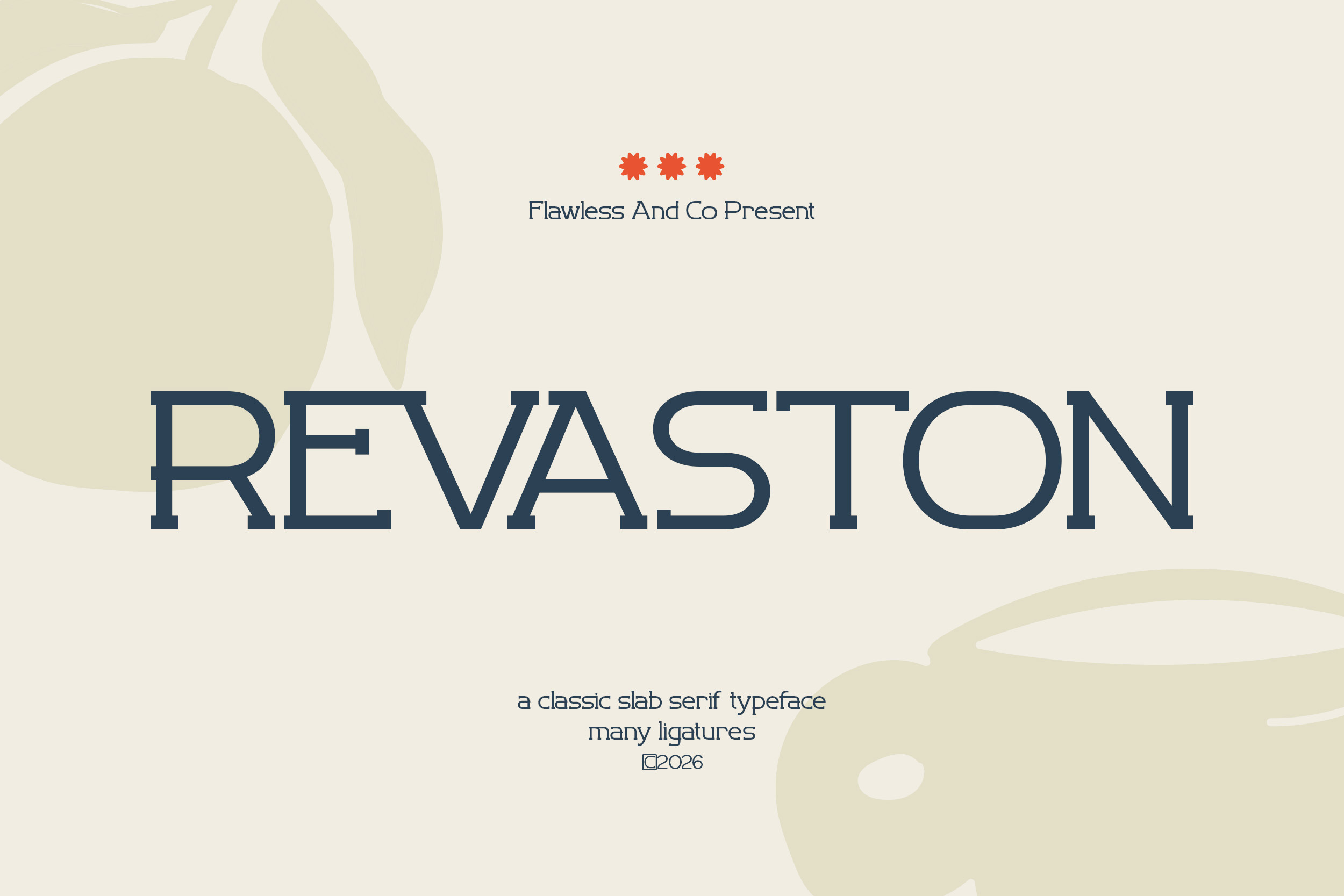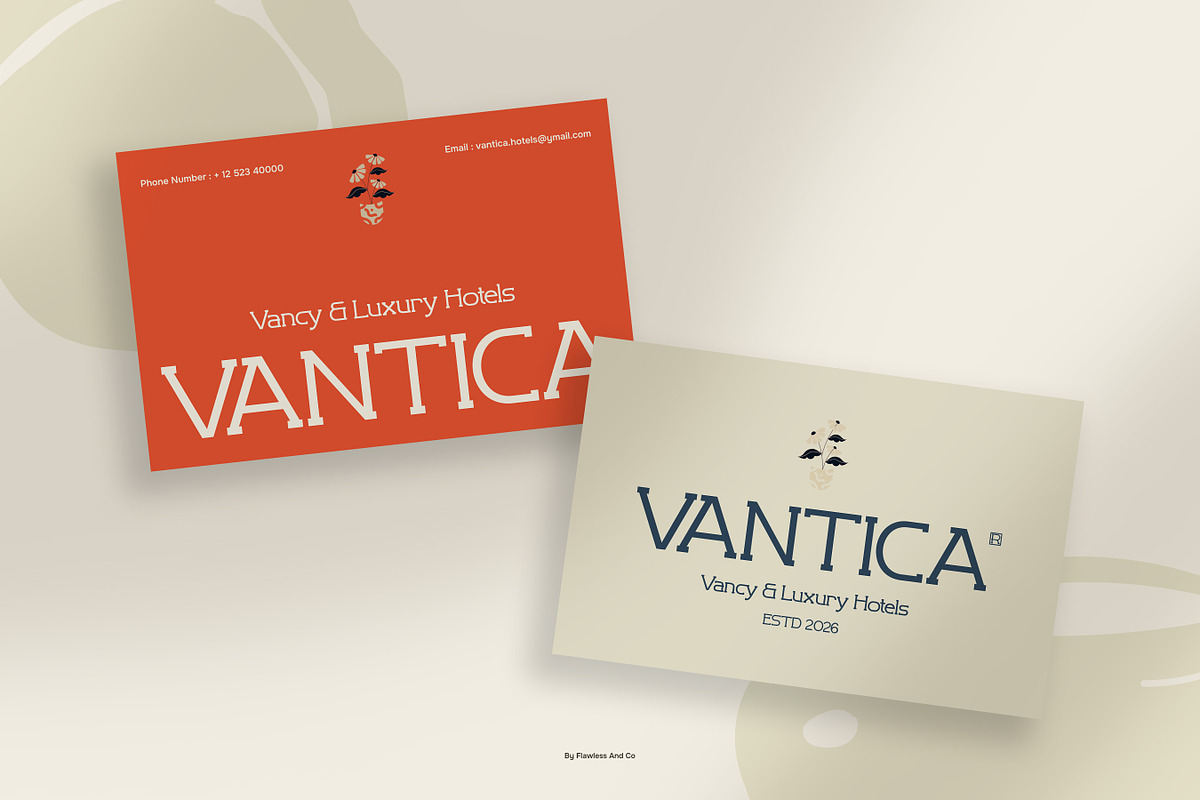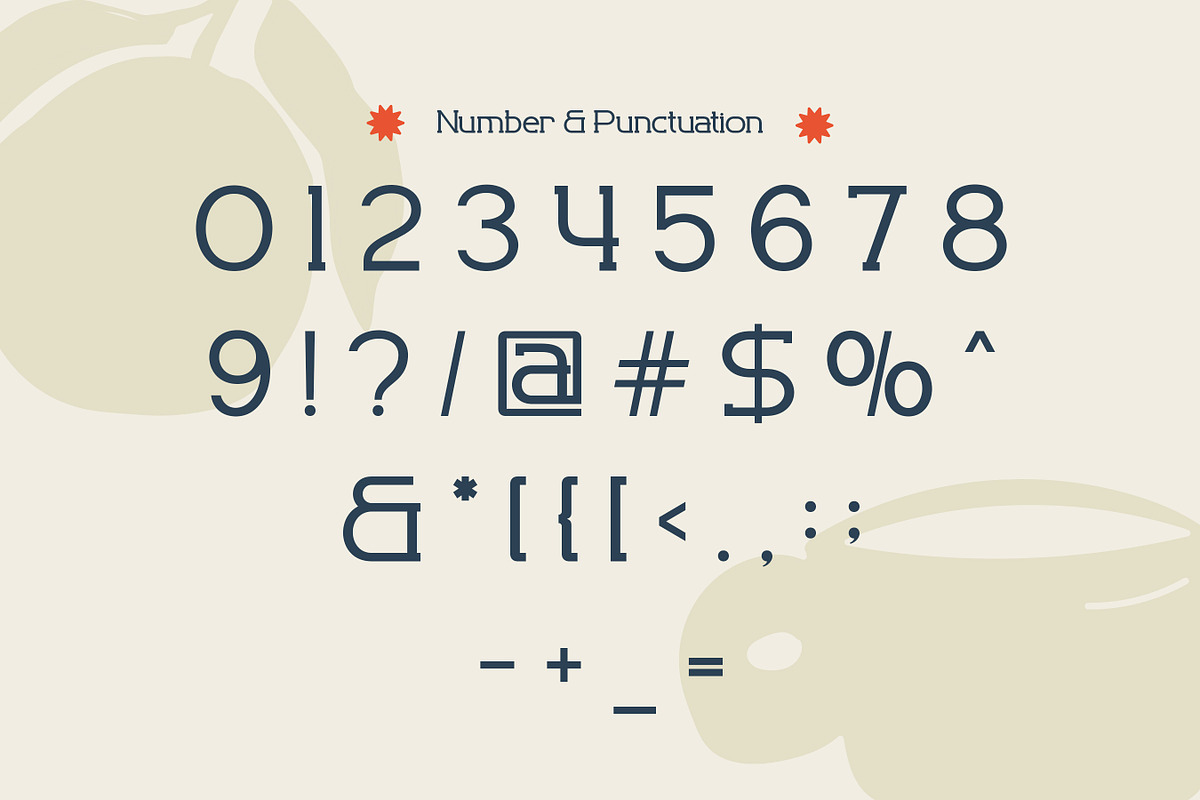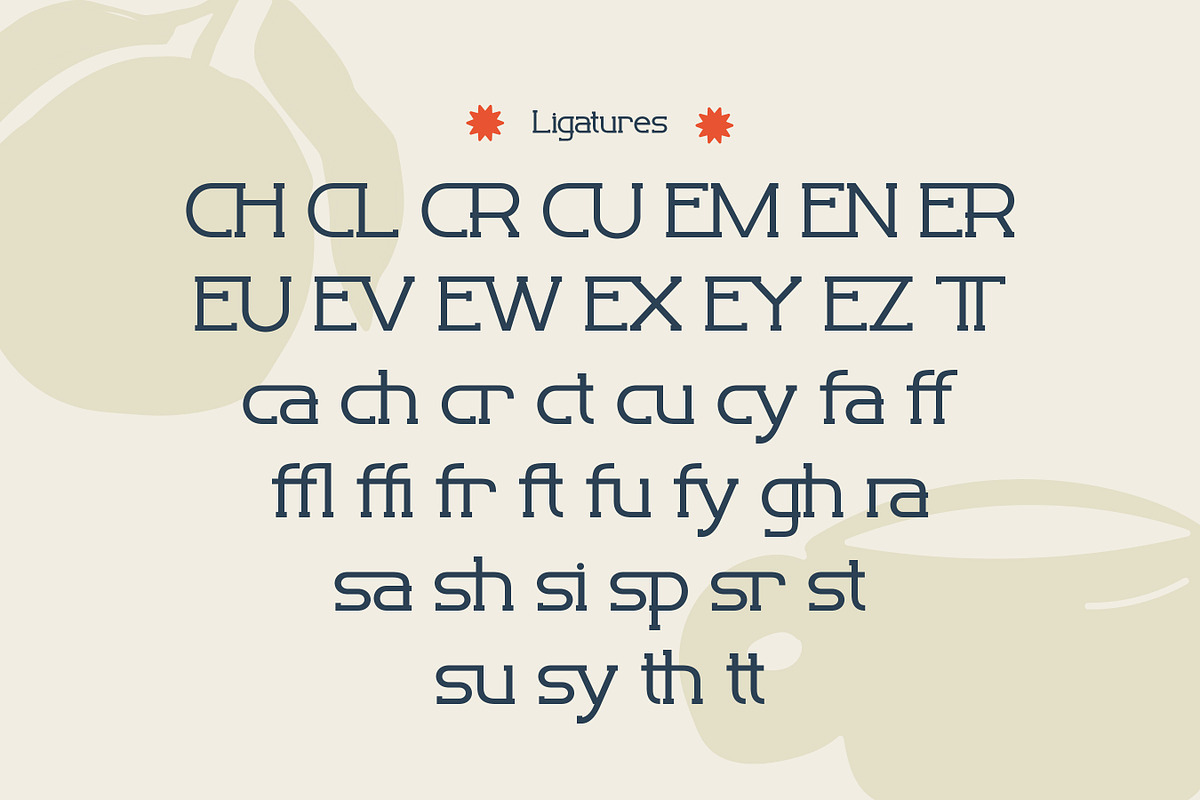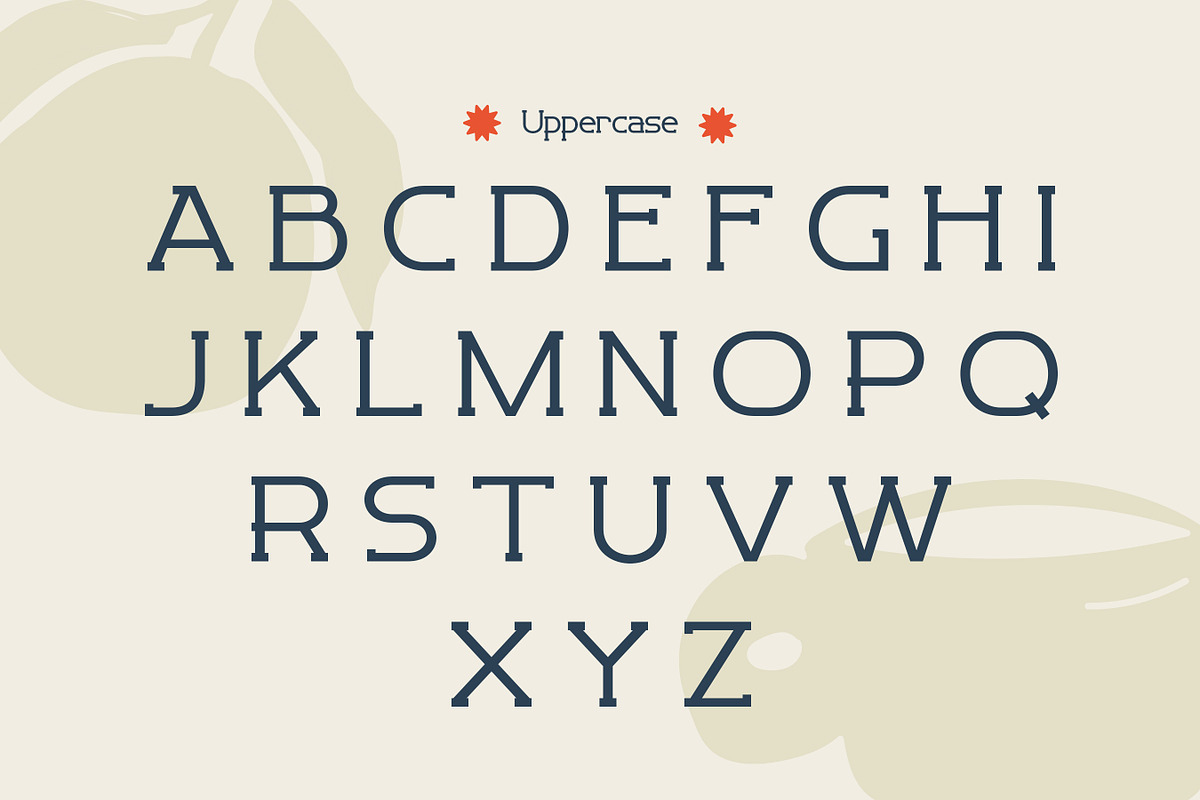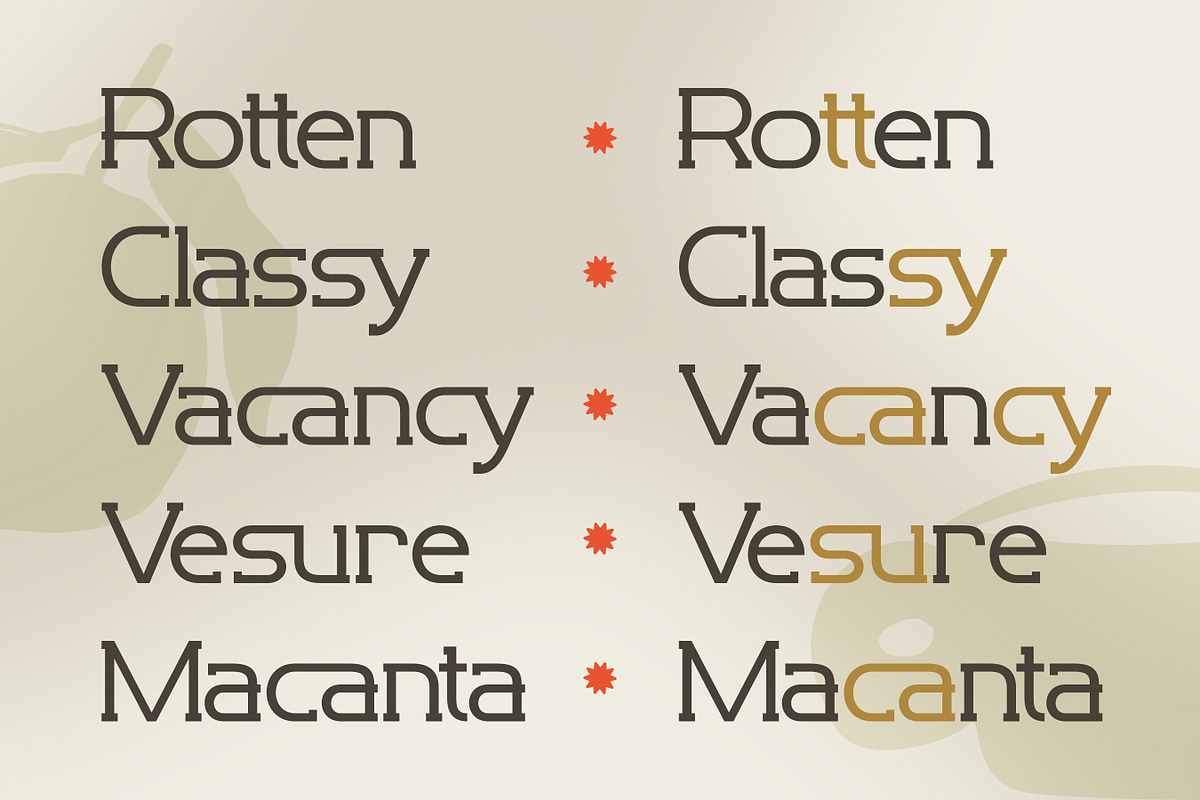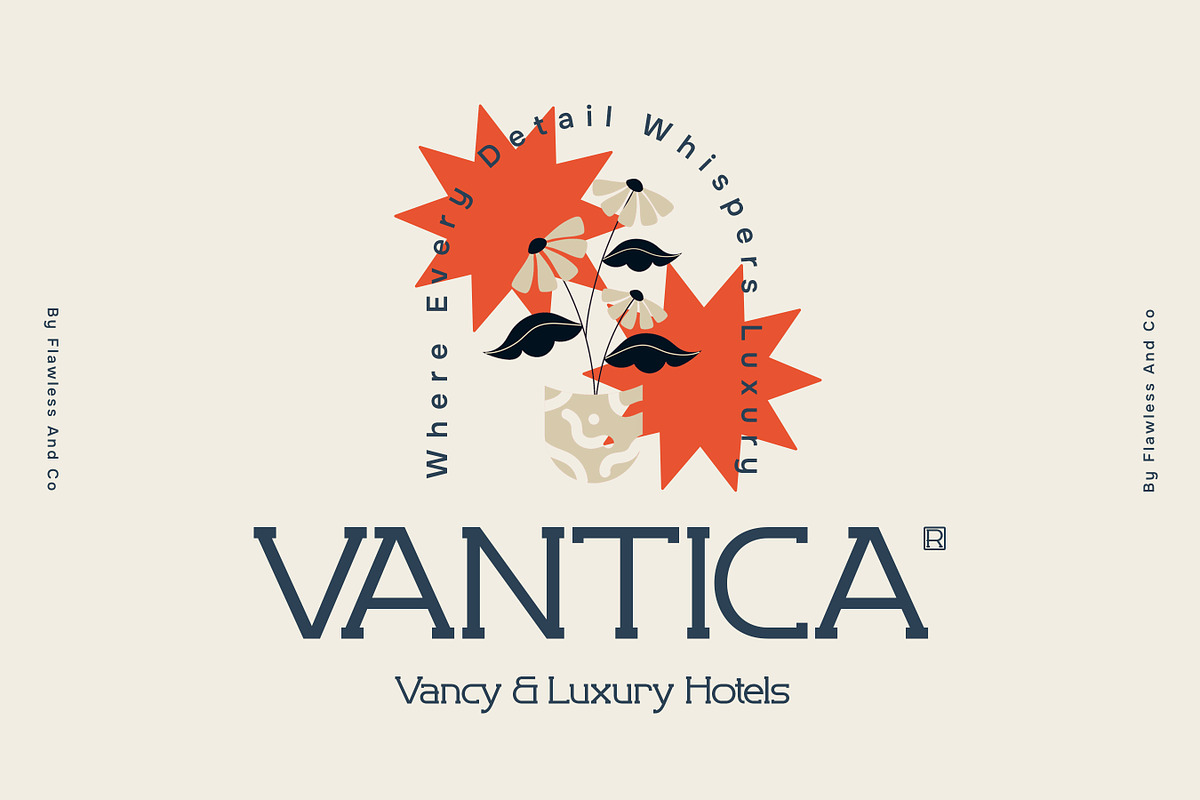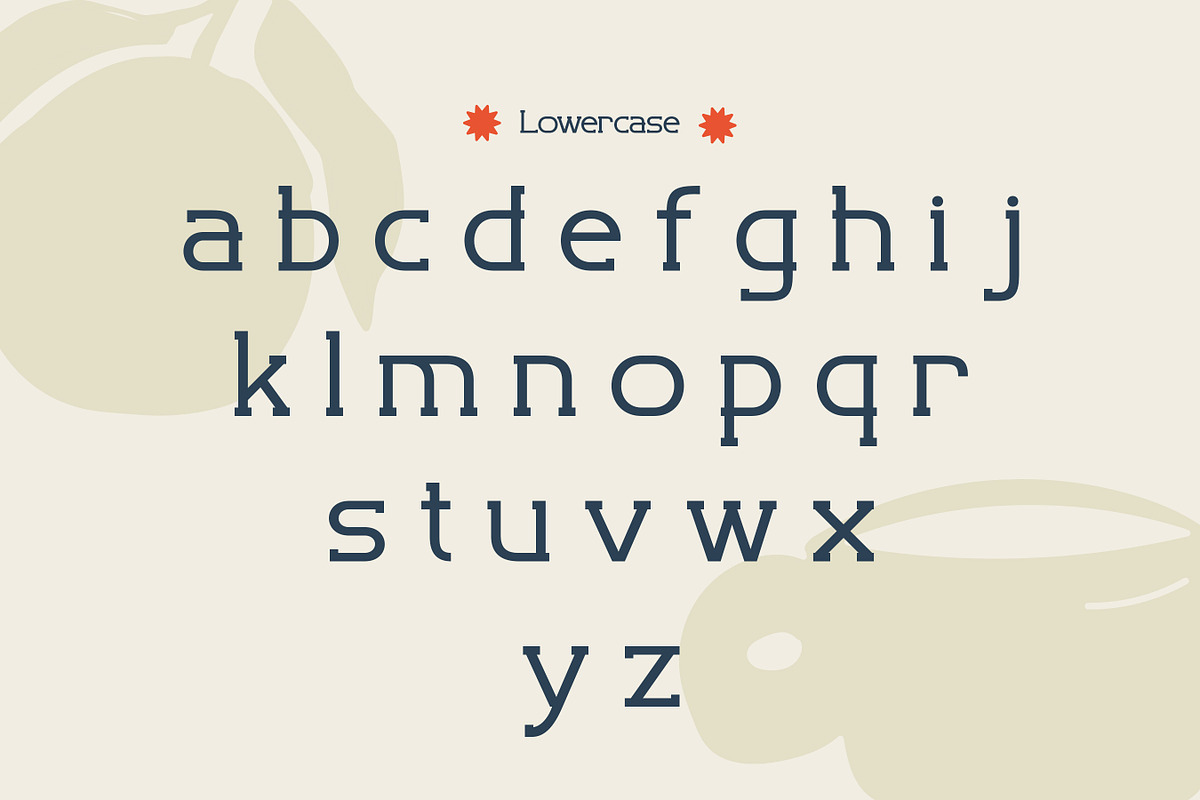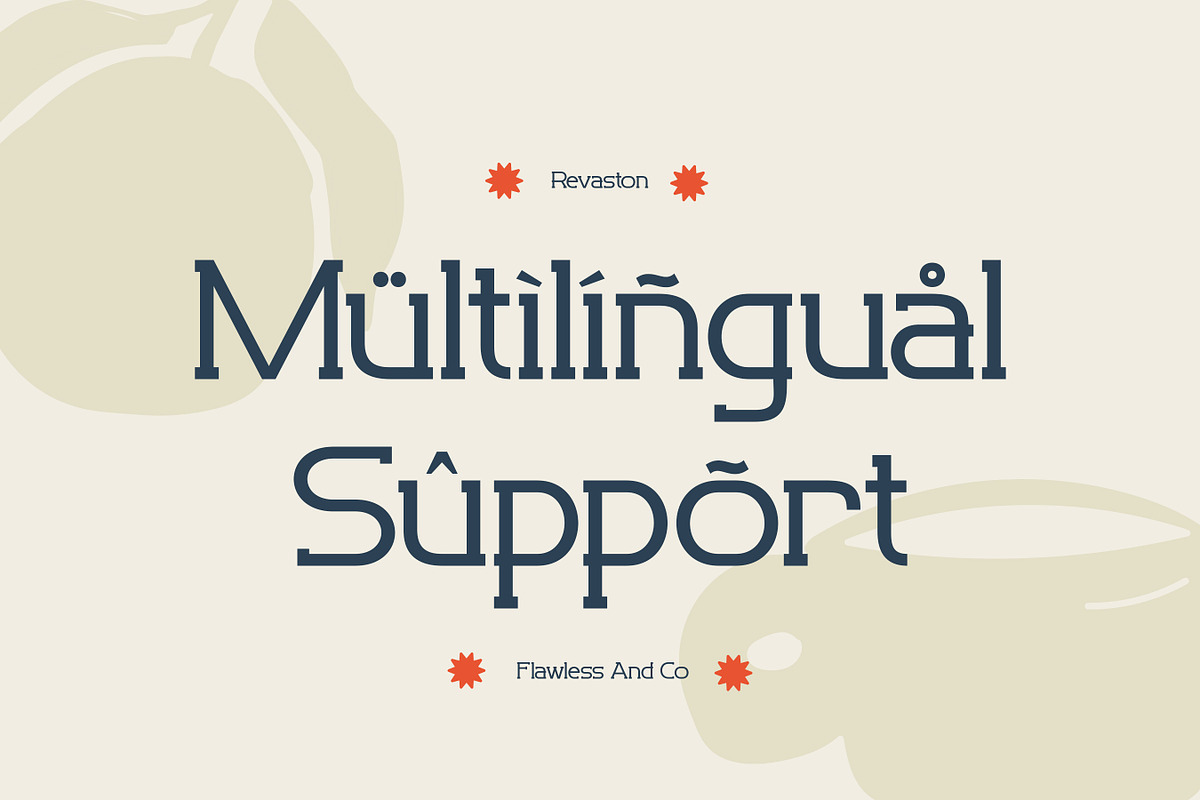
Revaston - Classic Slab Serif Font
Revaston – Classic Slab Serif Font
Revaston is a classic slab serif font designed with strong structure and timeless character. Featuring distinctive slab serifs, balanced proportions, strong and clean letterforms, Revaston creates a confident and structured typographic style suitable for many design needs. Inspired by traditional slab serif typography, this font offers a solid and reliable appearance while maintaining clarity and readability. Its well-crafted letterforms provide a professional look that works well across both print and digital designs.
Who Should Use Revaston?
Revaston is suitable for designers, creatives, and brands looking for a classic slab serif typeface that delivers structure, clarity, and timeless style.
Suitable For:
- Logo and brand identity design
- Editorial layouts and magazine headlines
- Posters and promotional materials
- Packaging and product labels
- Advertising and marketing graphics
- Website headers and digital design
- Social media graphics
- Creative display typography